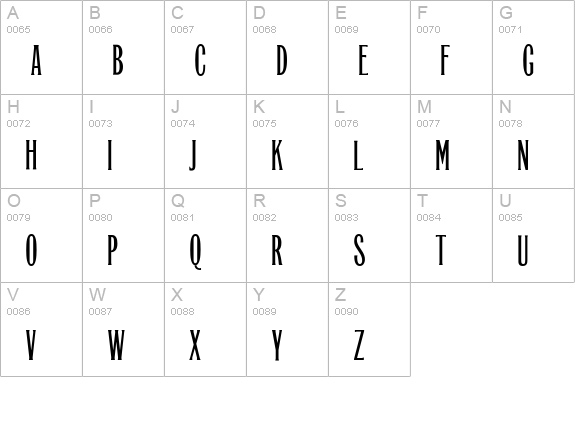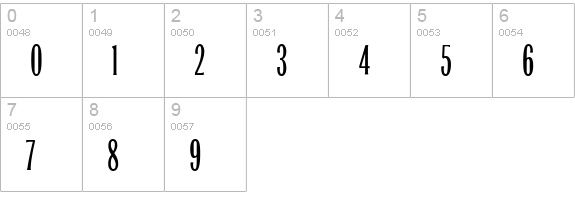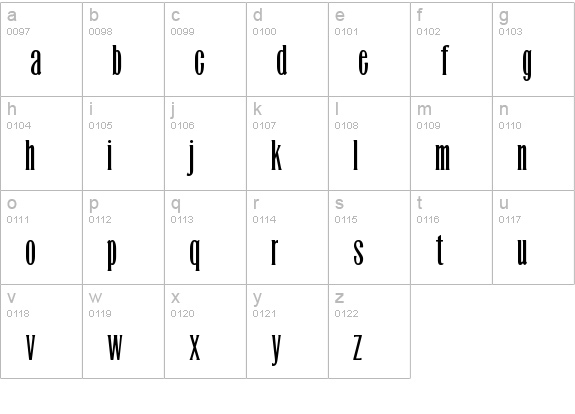
CgMiehleCondensed Font Details
CgMiehleCondensed is a versatile and elegant font that exudes sophistication and modernity. With its condensed style, this font is perfect for creating sleek and stylish designs. Its clean lines and balanced proportions make it ideal for a wide range of projects, from branding to editorial design. The beauty of CgMiehleCondensed lies in its ability to strike the perfect balance between classic and contemporary, making it a timeless choice for any design project. Whether you're looking to create eye-catching headlines or elegant body text, this font has you covered. And the best part? CgMiehleCondensed is available for free download at FontsMarket.com. So go ahead and add this beautiful font to your collection today!